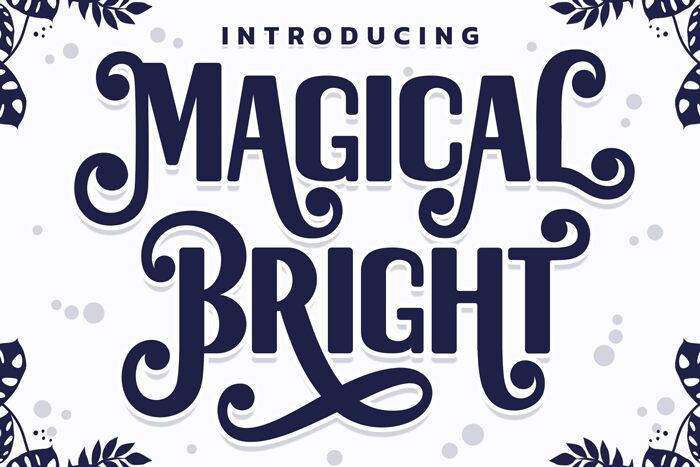
Magical Bright, a captivating display font designed by Hoperative, infuses a touch of retro charm to any project. With its semi-bold weight, this font effortlessly grabs attention and adds an element of nostalgic elegance. Perfect for logo design, vintage-inspired packaging, or eye-catching posters, Magical Bright brings a unique flair to branding projects seeking a dash of whimsy. Its playful yet sophisticated style also makes it suitable for children's book covers or quirky website headers that demand creativity and visual appeal. Let Magical Bright transport your designs to the enchanting era of retro aesthetics.
Magical Bright